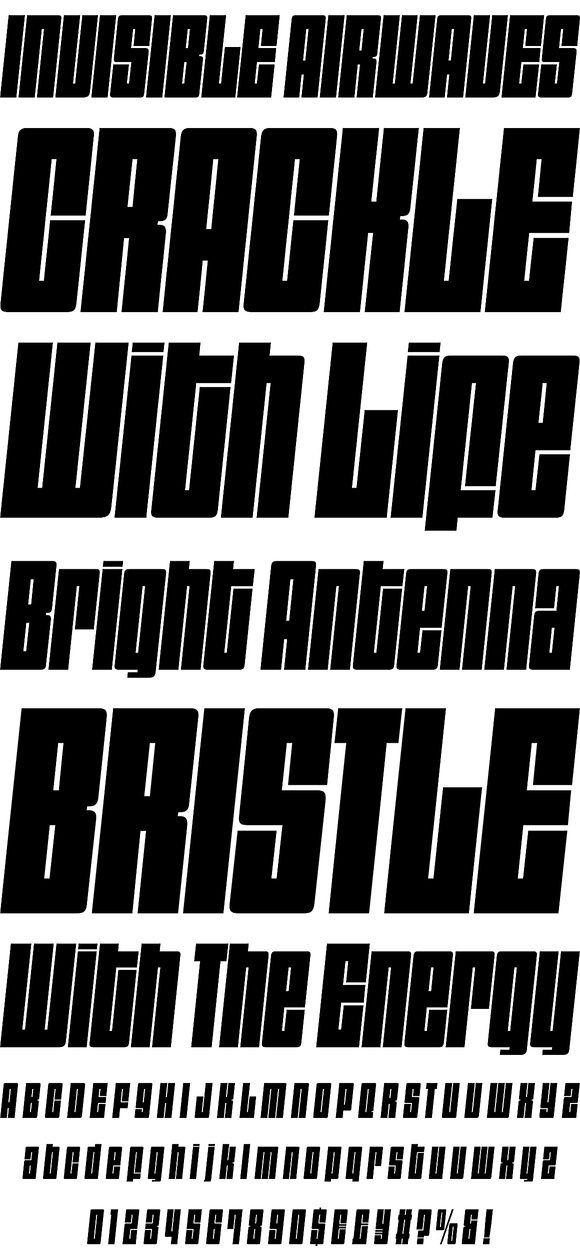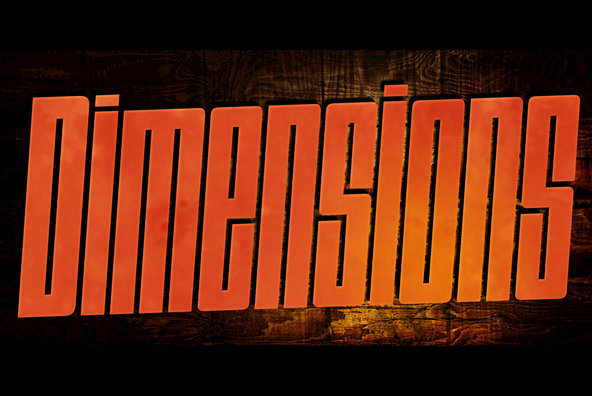
Dimensions is redesigned font family based on Blackout font released as free font in 2005. The original blackout has been used especially for company or brand logo of fashion and music label in the world.
Dimensions is redesigned font family based on Blackout font released as free font in 2005. The original blackout has been used especially for company or brand logo of fashion and music label in the world. In 2011, Blackout had evolved into this Dimensions font family of seven weights with roman and italics. They are one of the most condensed, black and skinny font in the world. All weights and italics have upper and lower cases, accented characters and small capital glyphs that can be used with OpenType smcp feature.